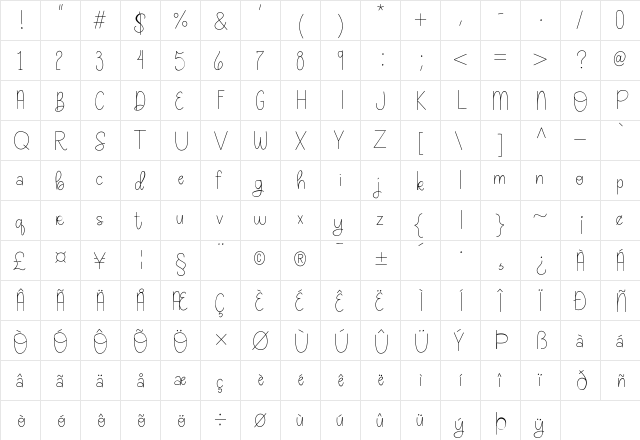
Karma Loo Regular
Design Context for Karma Loo Typeface
Karma Loo is a composed and adaptable typeface that performs quietly and consistently across a wide range of design contexts.